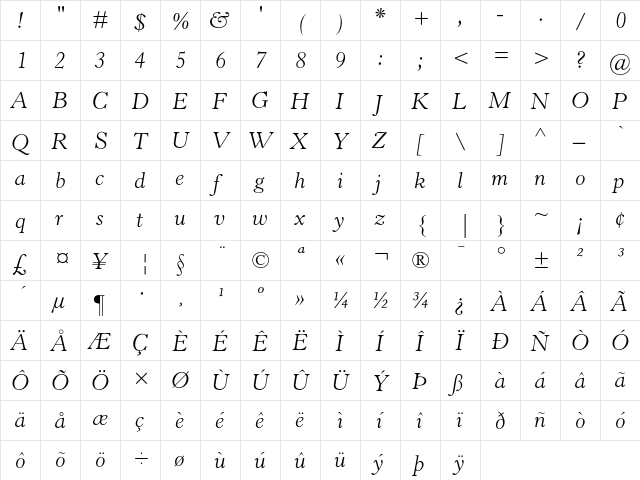
Horley Old Style MT Light Italic
Design Context for Horley Old Style MT Typeface
Horley Old Style MT is a composed and adaptable typeface that performs quietly and consistently across a wide range of design contexts. The slanted form adds forward momentum and visual energy. The delicate stroke weight brings airiness and refinement to layouts.
Pro Tip: Use Horley Old Style MT for emphasis, pull quotes, and subheadings where its slanted energy can add rhythm to the layout.